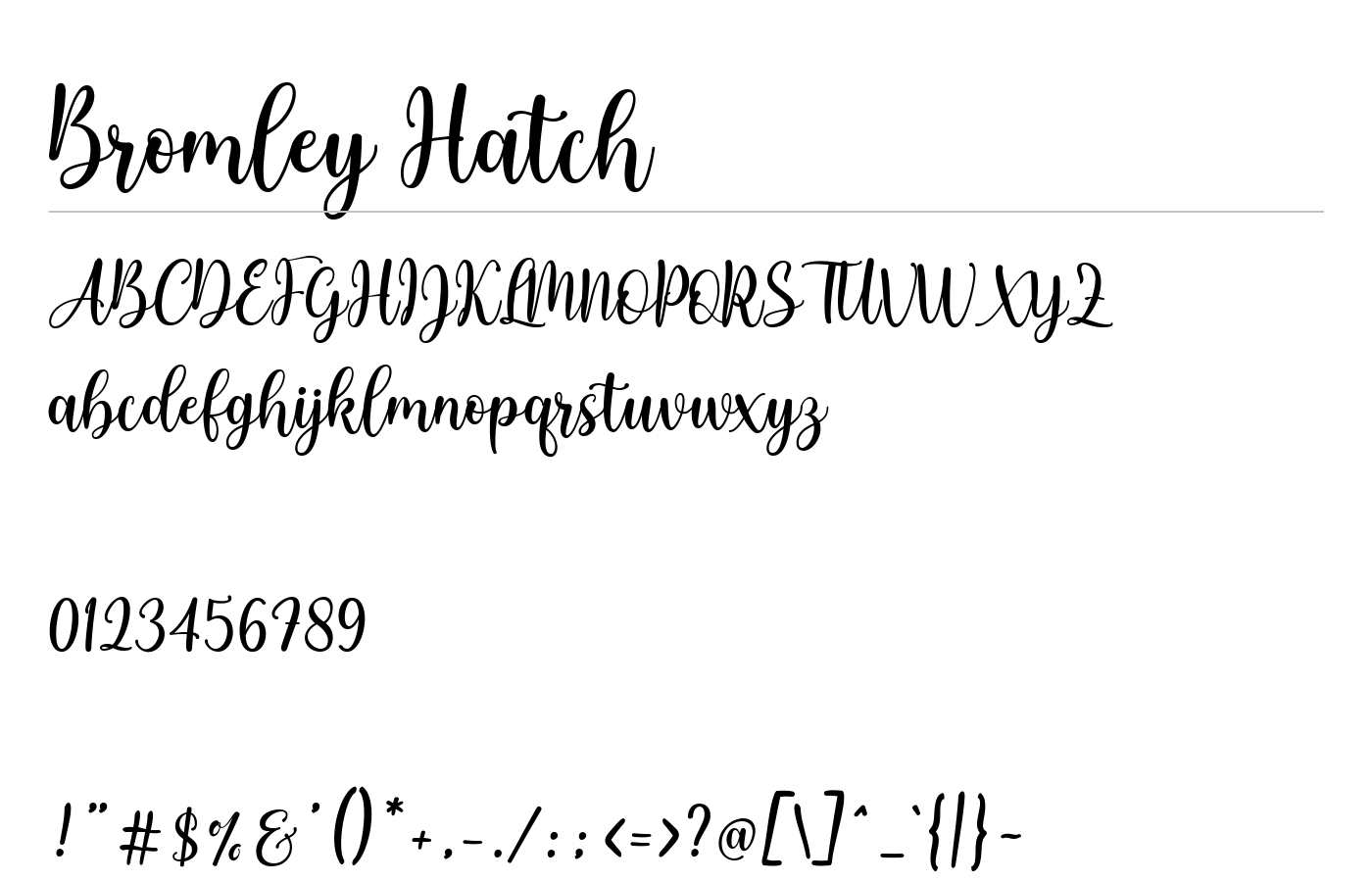
Bromley Hatch is a lively and elegant script font with a handwritten feel, featuring smooth, flowing strokes and moderate contrast that add a touch of charm and sophistication. Its tall x-height, balanced letterforms, and distinctive uppercase characters make it perfect for creating stylish invitations, branding, or any design that seeks a personal and welcoming touch. This font shines in creative and decorative uses, lending warmth and personality to logos, packaging, and headline displays.
Bromley Hatch Font
About Bromley Hatch Font
| Font family | Bromley Hatch Font |